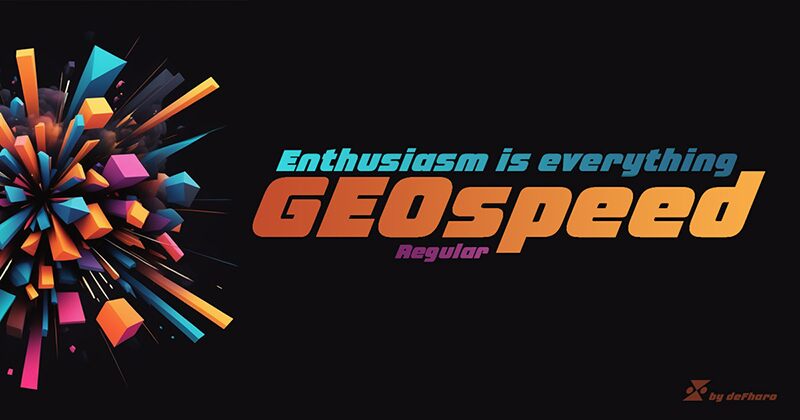
GEOspeed FFP
GEOspeed, designed by the talented Fernando Haro, is not just a font—it's a statement piece for any visual composition. This extra-bold, semi-expanded display typeface embodies the perfect blend of sans serif geometry and dynamic inclination with its distinctive 22-degree slope. The inclusion of alternative characters and geometric icons infuses every word with unparalleled energy, making GEOspeed an exceptional choice for advertising campaigns, eye-catching posters, and commanding banners.
Its modernistic flair and impression of movement are poised to capture attention in any context. GEOspeed isn't merely about making words legible; it's about making them resonate with life. With advanced Open Type features at your fingertips, designers can tailor their messages with surgical precision. Each glyph bears the potential for endless creative exploration—a true playground for those who dare to make a bold statement. Whether it's branding or artistic projects seeking a contemporary touch, GEOspeed is designed to leave an indelible mark on your audience's imagination.
GEOspeed, an innovative typeface, offers two distinctive styles: Regular and Versalite. A geometric sans-serif typeface with a 22-degree oblique slant and alternating letterforms, GEOspeed fuses solidity with boldness.